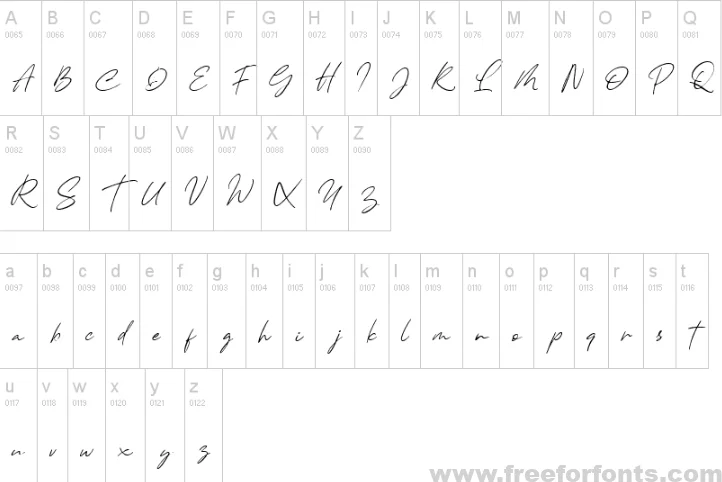
Lunafreya Font
Lunafreya Font is perfect for fantasy-themed designs, gaming logos, book covers, movie posters, mystical branding projects, celestial product packaging, magical event invitations, creative agency identities, fantasy art prints, esoteric website headers, spiritual product labels, and any design requiring an enchanting and ethereal aesthetic.
What makes Lunafreya Font exciting is its mystical character that evokes a sense of wonder and otherworldly beauty. The font's unique letterforms capture the essence of fantasy and imagination, making it ideal for projects that transport audiences to magical realms. Its distinctive personality helps brands stand out in creative industries while creating an atmospheric presence that captivates viewers and sparks curiosity.
The Lunafreya Font family typically includes uppercase and lowercase characters, numerals, punctuation marks, and special decorative elements that enhance its mystical appeal.